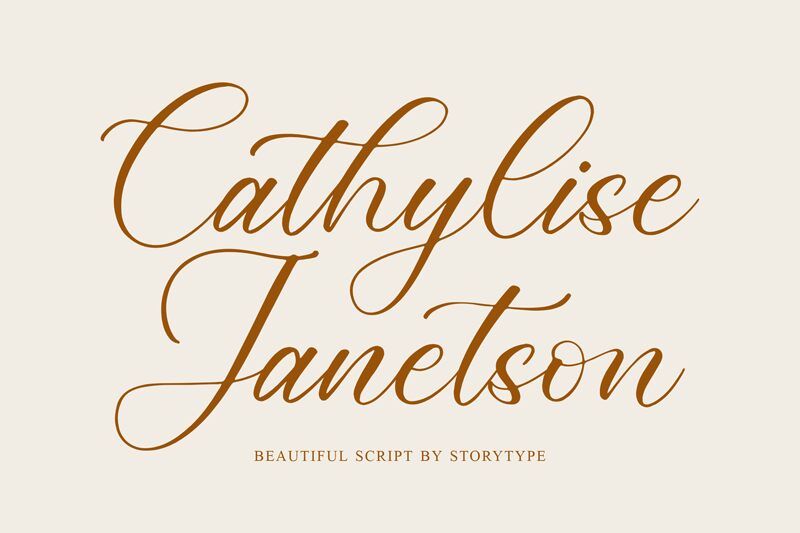
Cathylise Janetson, a captivating calligraphic font from the creative minds at Storytype Studio, commands attention with its elegant, sweeping strokes. This font exudes an aura of timeless sophistication, seamlessly blending traditional calligraphic techniques with a modern, refined aesthetic. The fluid, expressive letterforms dance across the page, conveying a sense of effortless grace and artistic expression.
Cathylise Janetson's alluring calligraphic style makes it a versatile choice for a wide range of design applications, from high-end editorial layouts to bespoke wedding invitations. Its captivating flourishes and harmonious letter connections lend an air of elegance and refinement to any project, while its inherent legibility ensures clear communication. Whether used for headline text, decorative accents, or sophisticated branding, this font has the power to elevate and enchant.